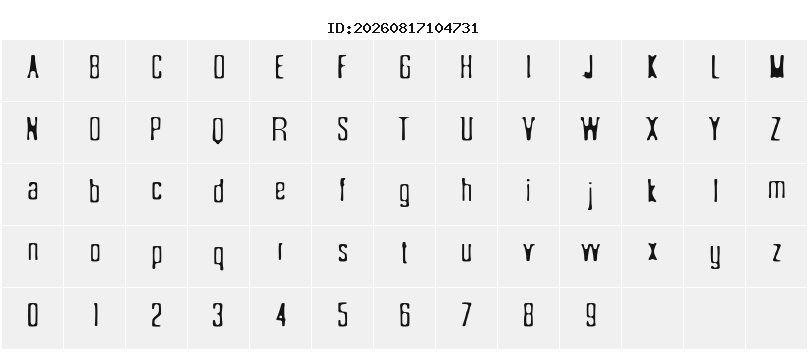
Sonderfistad Preview
• Font Name: Sonderfistad
• Full Font Name: Sonderfistad
• PostScript Name: Sonderfistad
About Sonderfistad.ttf
Sonderfistad.ttf is a modern, elegant sans-serif font designed for ultimate readability and visual harmony. Perfect for branding, headlines, web design, and print materials.